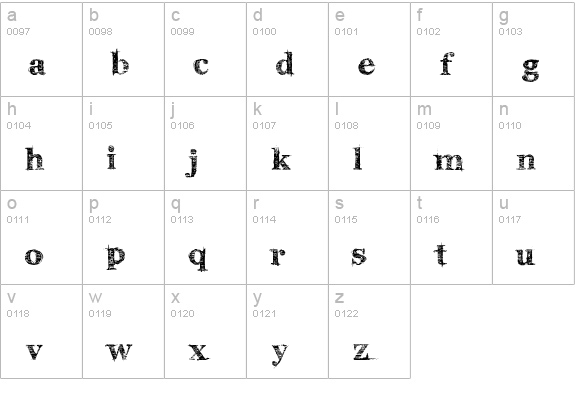
karabinE. Font Details
KarabinE font is a stunning display typeface that exudes elegance and sophistication. With its sharp lines and unique design, KarabinE is perfect for creating eye-catching headlines, logos, and branding materials. This versatile font is designed to make a statement and leave a lasting impression on your audience. What sets KarabinE font apart is not only its striking appearance but also the fact that it is available for free download at FontsMarket.com. This means that you can elevate your design projects without breaking the bank. Whether you're a graphic designer, marketer, or simply someone looking to add a touch of flair to your work, KarabinE font is a must-have in your font library. Download KarabinE font today and unleash your creativity with this exceptional typeface that is sure to elevate your designs to the next level.